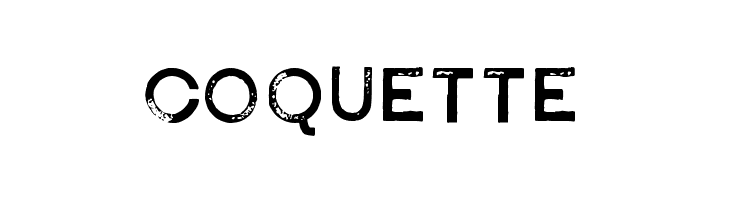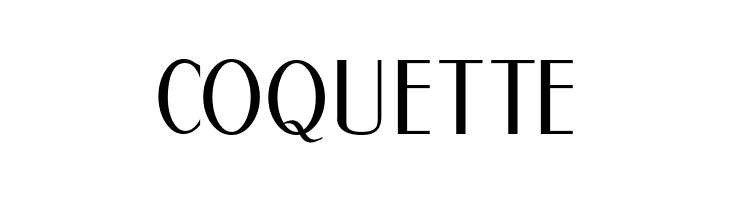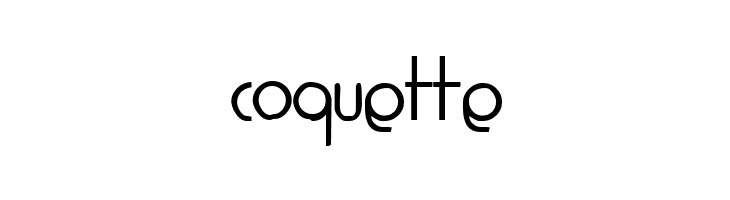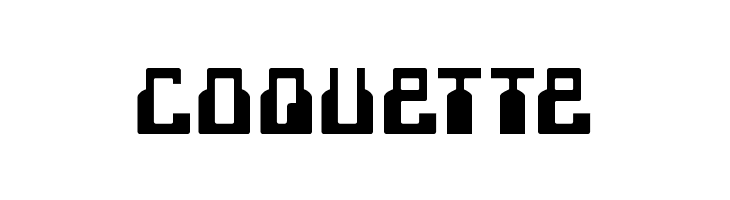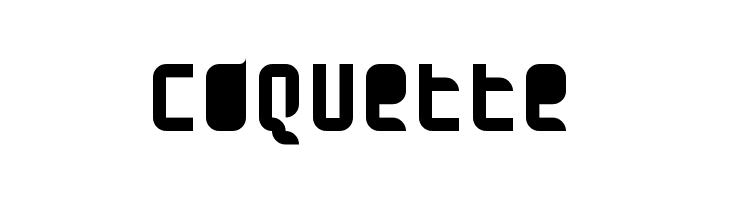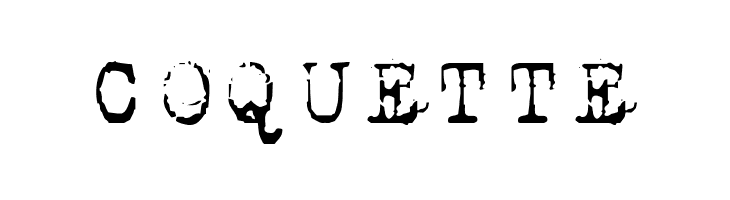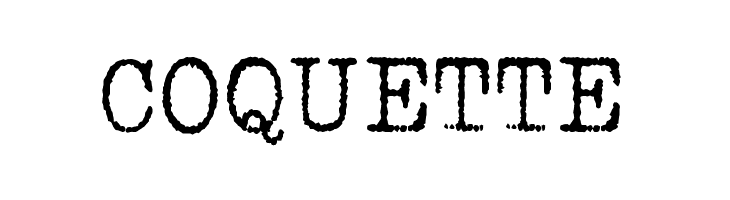
A modern, geometric font with smooth, continuous lines and a minimalist design.
A modern, geometric font with a bold, uniform stroke and unique curves.
A classic and elegant font with tall, slender letterforms and subtle curves.
A distressed, vintage-style font with a bold, stencil-like appearance.
A distressed, vintage typewriter-style font with a bold, textured appearance.
A vintage, typewriter-style slab serif font with a distressed texture.
A bold, geometric font with a retro-futuristic style.